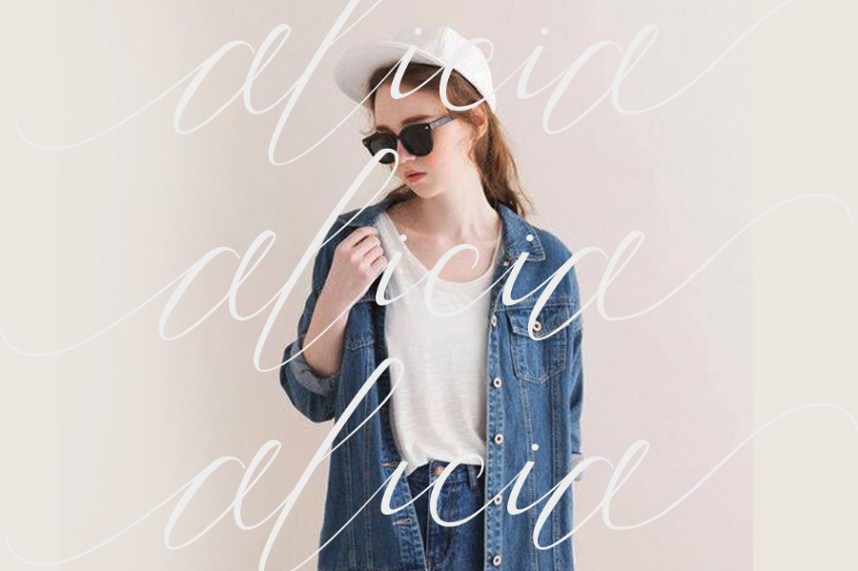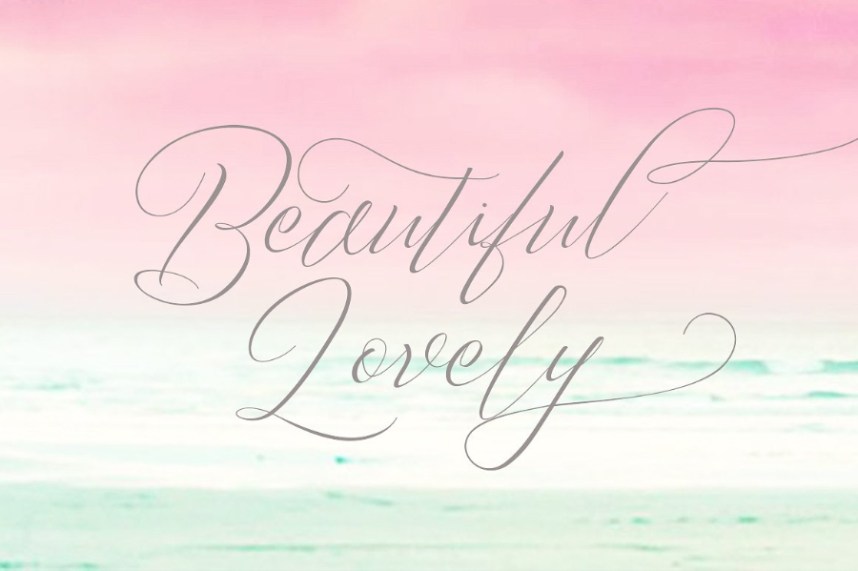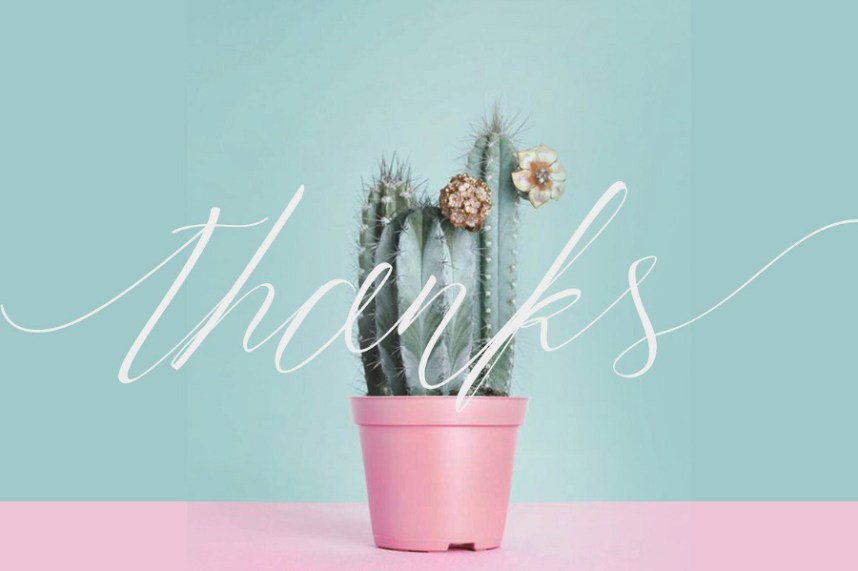
Trendencia Script Font
Introducing the new script font. Trendencia Script Font designed and shared by Dirtyline Studio. Trendencia is a stylish calligraphy font that features a varying baseline, smooth line, classic and elegant touch. Can be used for various purposes.such as headings, signature, logos, wedding invitation, t-shirt, letterhead, signage, lable, news, posters, badges etc.